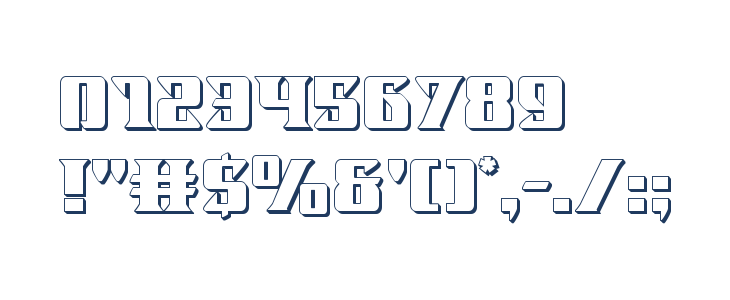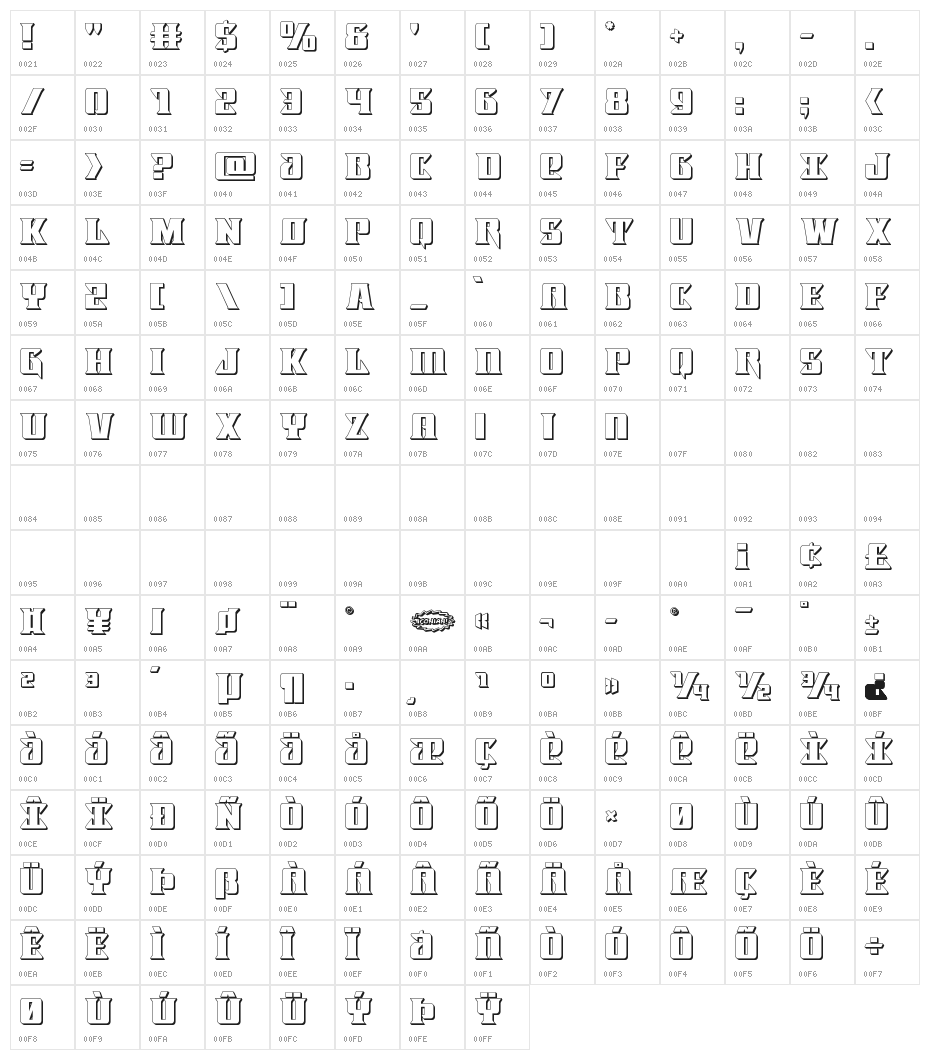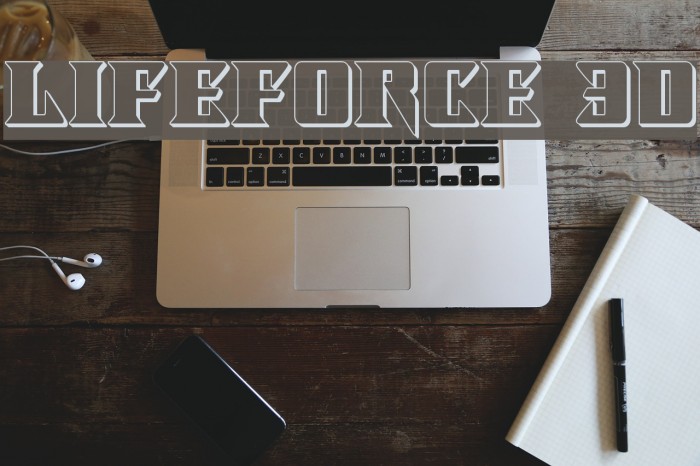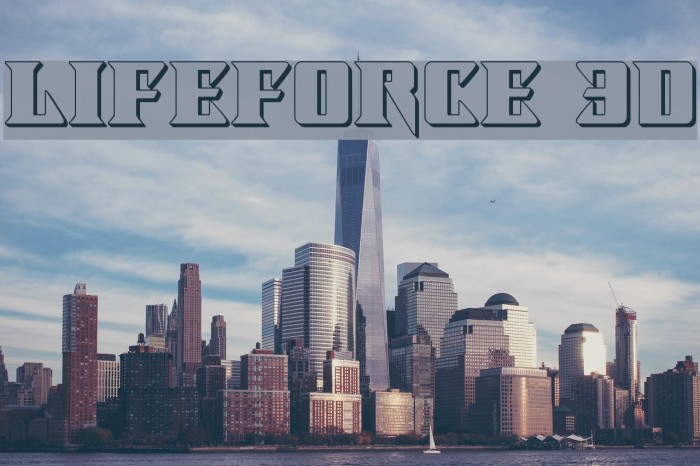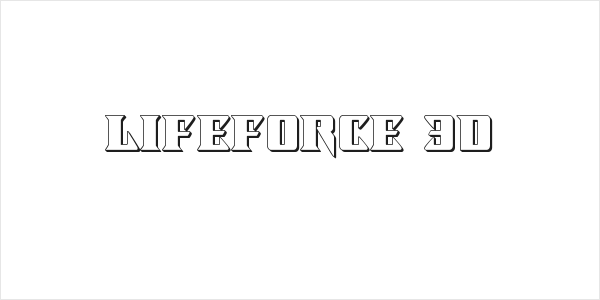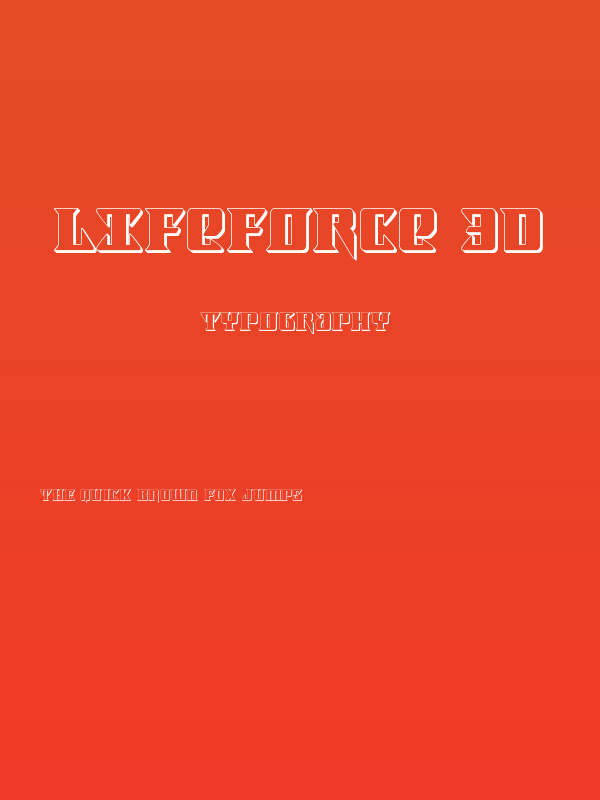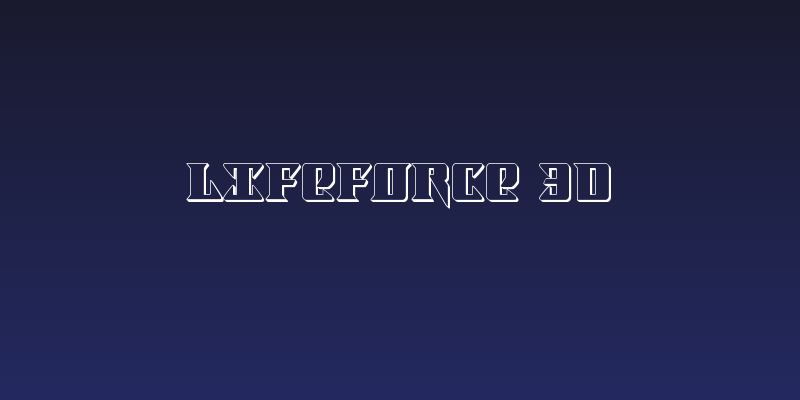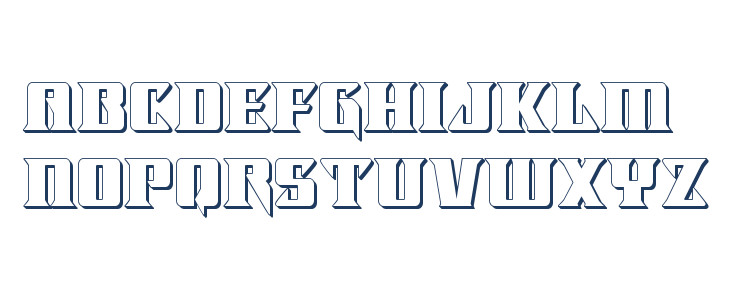
Lifeforce 3D Font
Lifeforce 3D Description
This font features a bold, three-dimensional design with a strong presence. The characters are outlined with a shadow effect, giving them a striking, embossed look. The angular and geometric shapes of the letters create a futuristic and dynamic appearance. The uppercase and lowercase letters maintain a consistent style, with sharp edges and a uniform thickness throughout. The numerals and special characters follow the same design principles, ensuring a cohesive look across all glyphs. This font is ideal for projects that require a bold and impactful visual statement.
| Proposed Projects | Ideal for video game titles, movie posters, branding for tech companies, and any project needing a futuristic and bold aesthetic. |